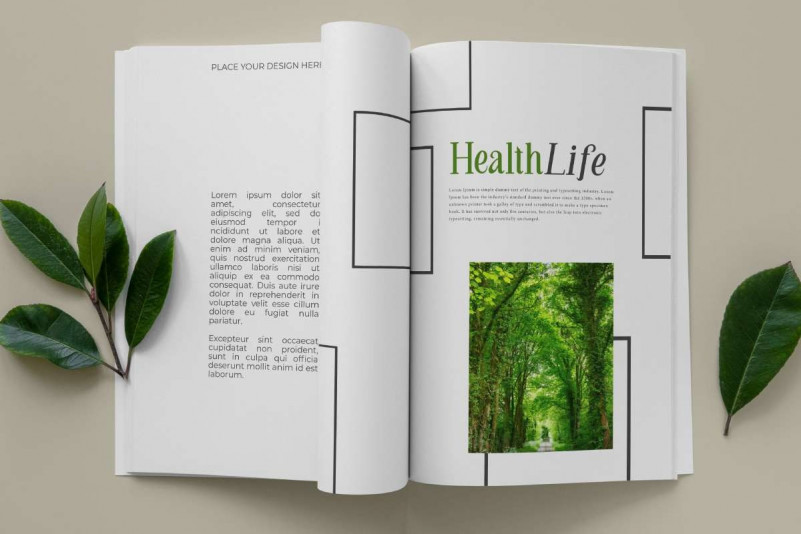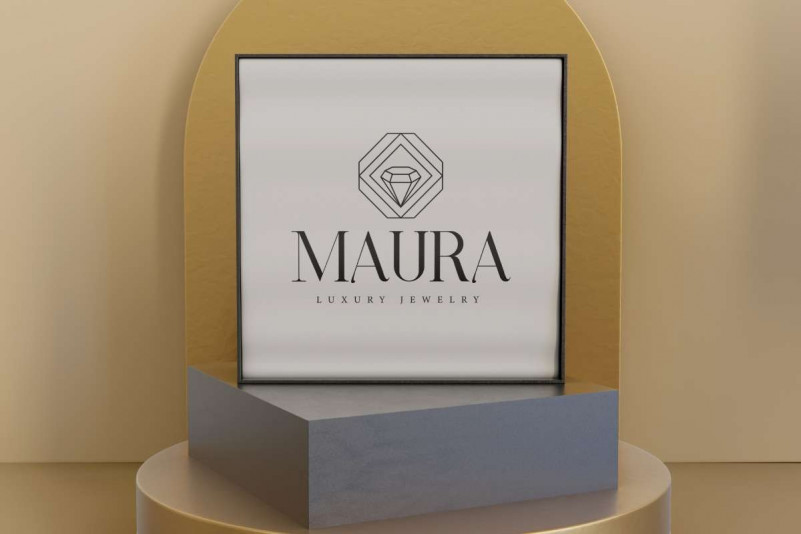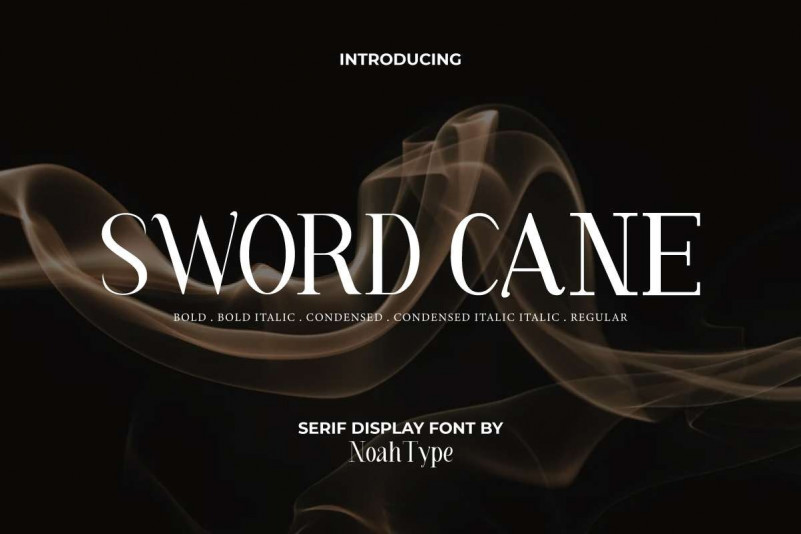
Sword Cane Font
Sword Cane Serif Font is a modern sophisticated serif display font. This font is packed with six different styles, there are Regular, Italic, Bold, Bold Italic, Condensed, Condensed Italic. It would be the best choice for many industries, such as bakery and pastry, beauty product, fashion, florist, furniture, homeware, jewelry, real estate, photography, printing, publishing, restaurant, spa salon, writer, and more!
Sword Cane Font include full set of Uppercase and Lowercase Basic Characters, Numerals and Punctuation. This font would be perfect for projects that require an elegant feel, including : billboard, brand logo, brochure, interior design, labels, magazine catalog, product packaging, quotes, signage, etc.